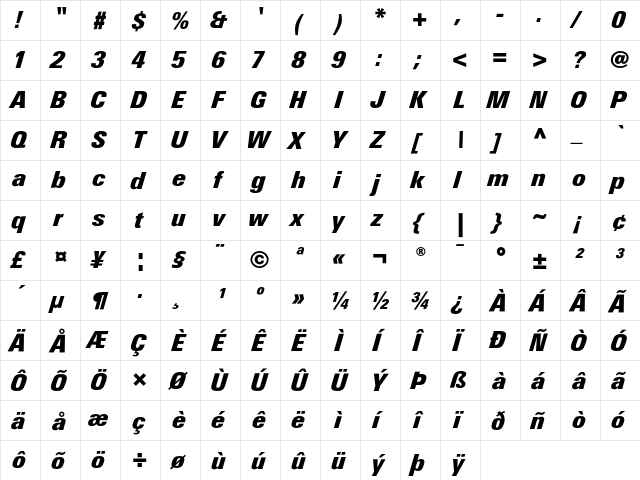
LinotypeUnivers CondExtraBlackIt
Design Context for LinotypeUnivers Typeface
LinotypeUnivers offers clean, dependable letterforms without strong stylistic allegiance, making it a practical choice for designers who need flexibility. The condensed width makes it efficient for tight spaces without sacrificing legibility.